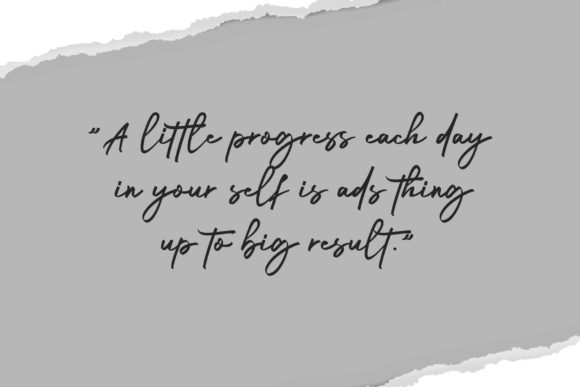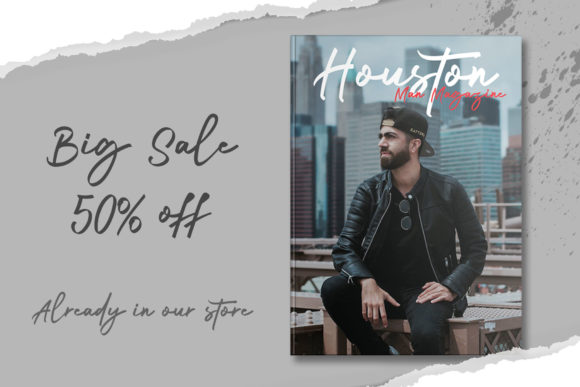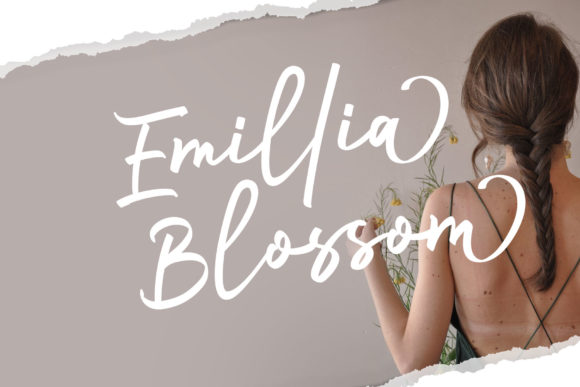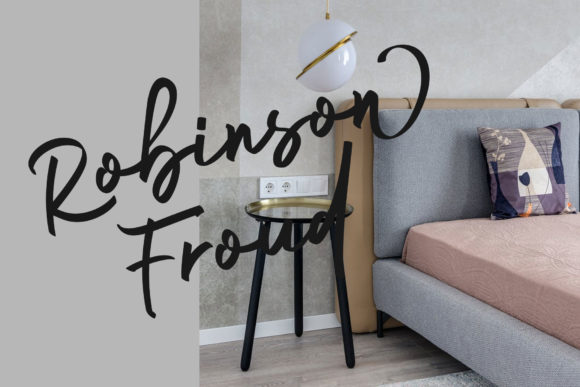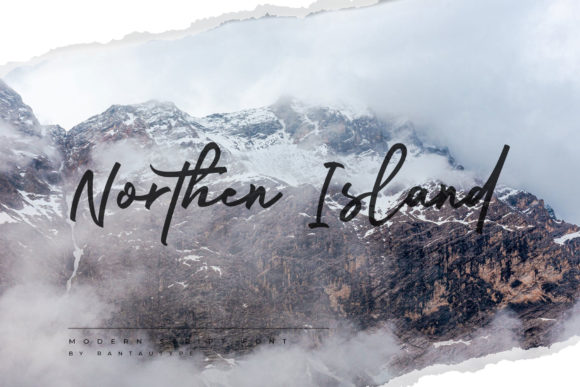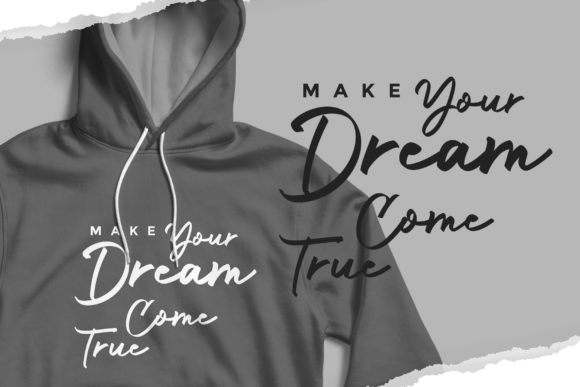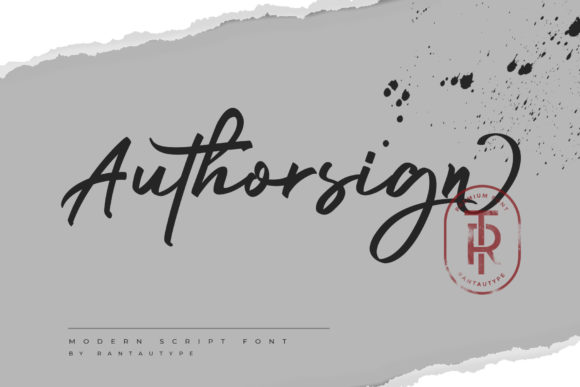
Introducing Authorsign Font: Elevate Your Designs with Elegance and Sophistication
Are you a designer or crafter looking for a font that exudes elegance and sophistication? Look no further than Authorsign Font, a stylish and incredibly elegant script font that is perfect for a variety of design projects. From wedding invitations and thank you cards to quotes, greeting cards, logos, and business cards, Authorsign Font is the ideal choice for adding a touch of handwritten charm to your designs.
What Makes Authorsign Font So Special?
Authorsign Font is a standout font that offers a range of features that make it perfect for designers and crafters. Here are just a few of the things that make Authorsign Font so special:
- Elegant and Sophisticated: Authorsign Font is a beautifully designed script font that is both elegant and sophisticated. Its flowing lines and intricate details make it perfect for designs that require a touch of luxury and refinement.
- PUA Encoded: Authorsign Font is PUA (Private Use Area) encoded, which means that you can access all of the glyphs and swashes with ease. This makes it easy to customize your designs and add unique touches that set them apart.
- Versatile: Authorsign Font is incredibly versatile and can be used for a wide range of design projects. Whether you’re creating wedding invitations, business cards, or social media graphics, Authorsign Font is the perfect choice.
If you’re a designer or crafter who specializes in wedding and event designs, Authorsign Font is a must-have font in your collection. Its elegant and sophisticated style makes it perfect for:
- Wedding Invitations: Create beautiful and unique wedding invitations that set the tone for the big day.
- Thank You Cards: Add a touch of elegance to your thank you cards and make them truly special.
- Event Stationery: Use Authorsign Font to create stunning event stationery, including programs, menus, and place cards.
Perfect for Branding and Marketing Designs
Authorsign Font is also perfect for branding and marketing designs. Its elegant and sophisticated style makes it ideal for:
- Logos: Create a stunning logo that sets your brand apart from the competition.
- Business Cards: Use Authorsign Font to create business cards that are both professional and stylish.
- Social Media Graphics: Add a touch of elegance to your social media graphics and make them truly stand out.
Tips for Using Authorsign Font
Here are a few tips for using Authorsign Font in your designs:
- Experiment with Different Sizes: Authorsign Font looks great in a variety of sizes, so don’t be afraid to experiment and find the perfect size for your design.
- Pair with Other Fonts: Authorsign Font pairs well with a range of other fonts, so try pairing it with a bold font for a striking contrast.
- Use Swashes and Glyphs: Take advantage of the PUA encoding and use the swashes and glyphs to add unique touches to your designs.
Authorsign Font is a stylish and incredibly elegant script font that is perfect for designers and crafters who want to add a touch of handwritten charm to their designs. With its PUA encoding, elegant style, and versatility, Authorsign Font is a must-have font in any design collection. Whether you’re creating wedding invitations, business cards, or social media graphics, Authorsign Font is the perfect choice.